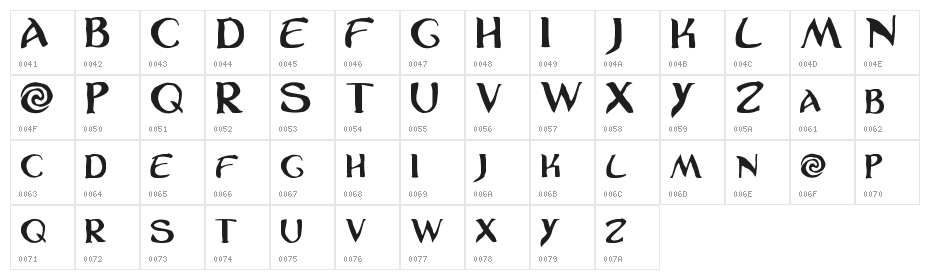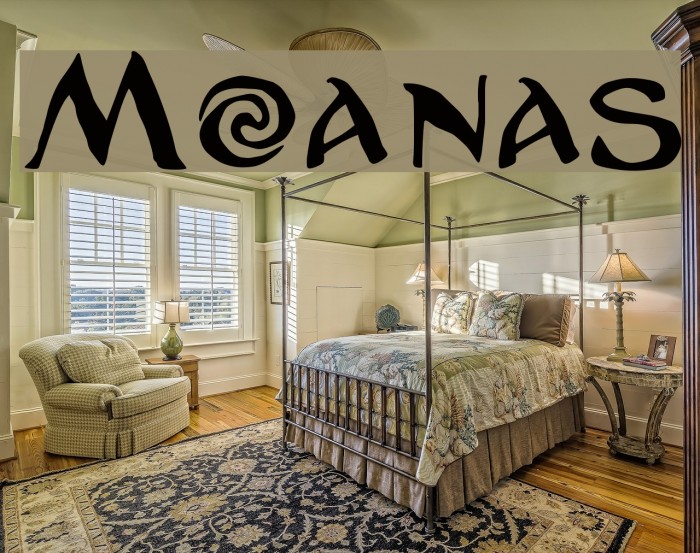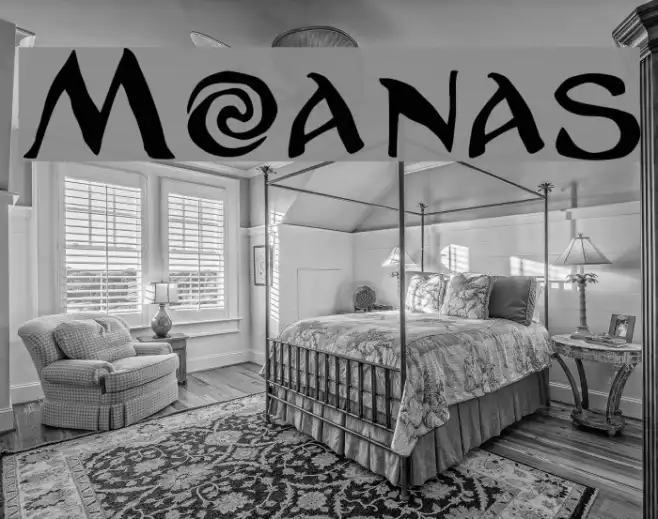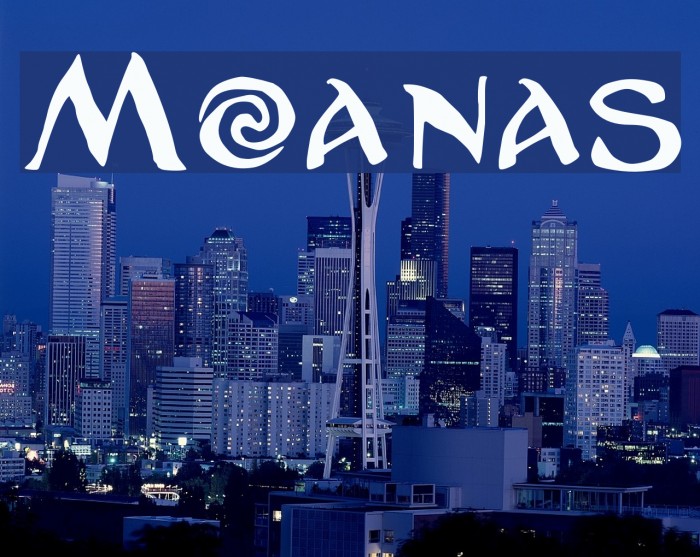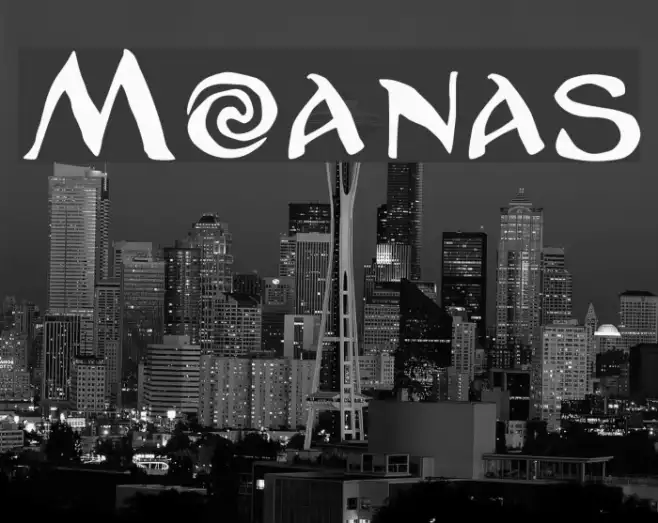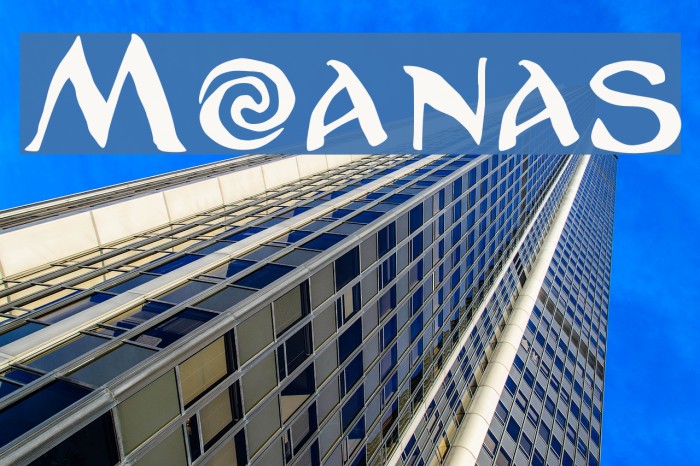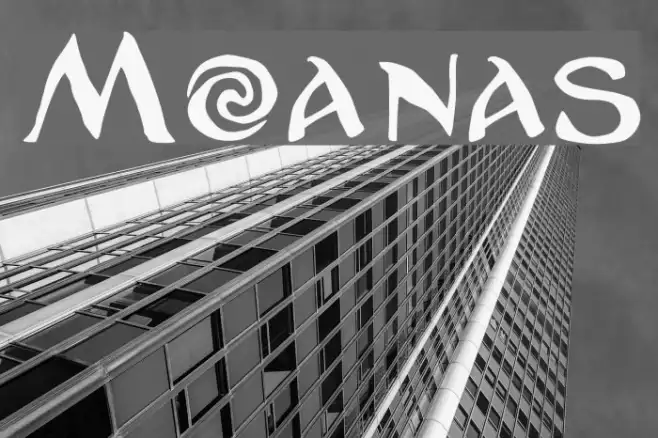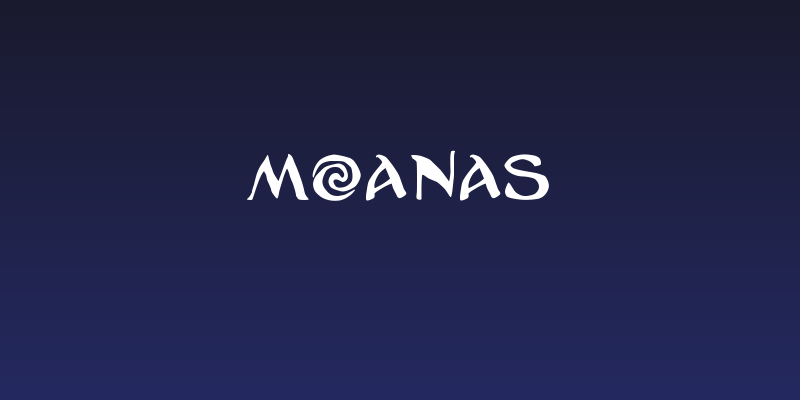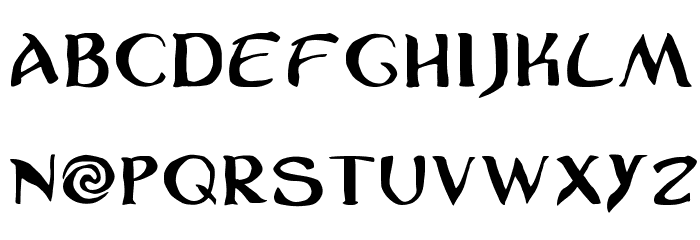
Moanas Font
Moanas Description
This font features a unique and artistic style with a hand-drawn appearance. The characters are bold and have a slight slant, giving them a dynamic and lively feel. The strokes are uneven, adding to the handcrafted look, and the letters have varying widths, which contributes to an organic and natural aesthetic. The font includes decorative elements, such as spirals in some characters, enhancing its playful and whimsical nature. It is well-suited for projects that require a creative and informal touch.
| Proposed Projects | Ideal for creative projects such as children's book covers, playful branding, artistic posters, and invitations. |